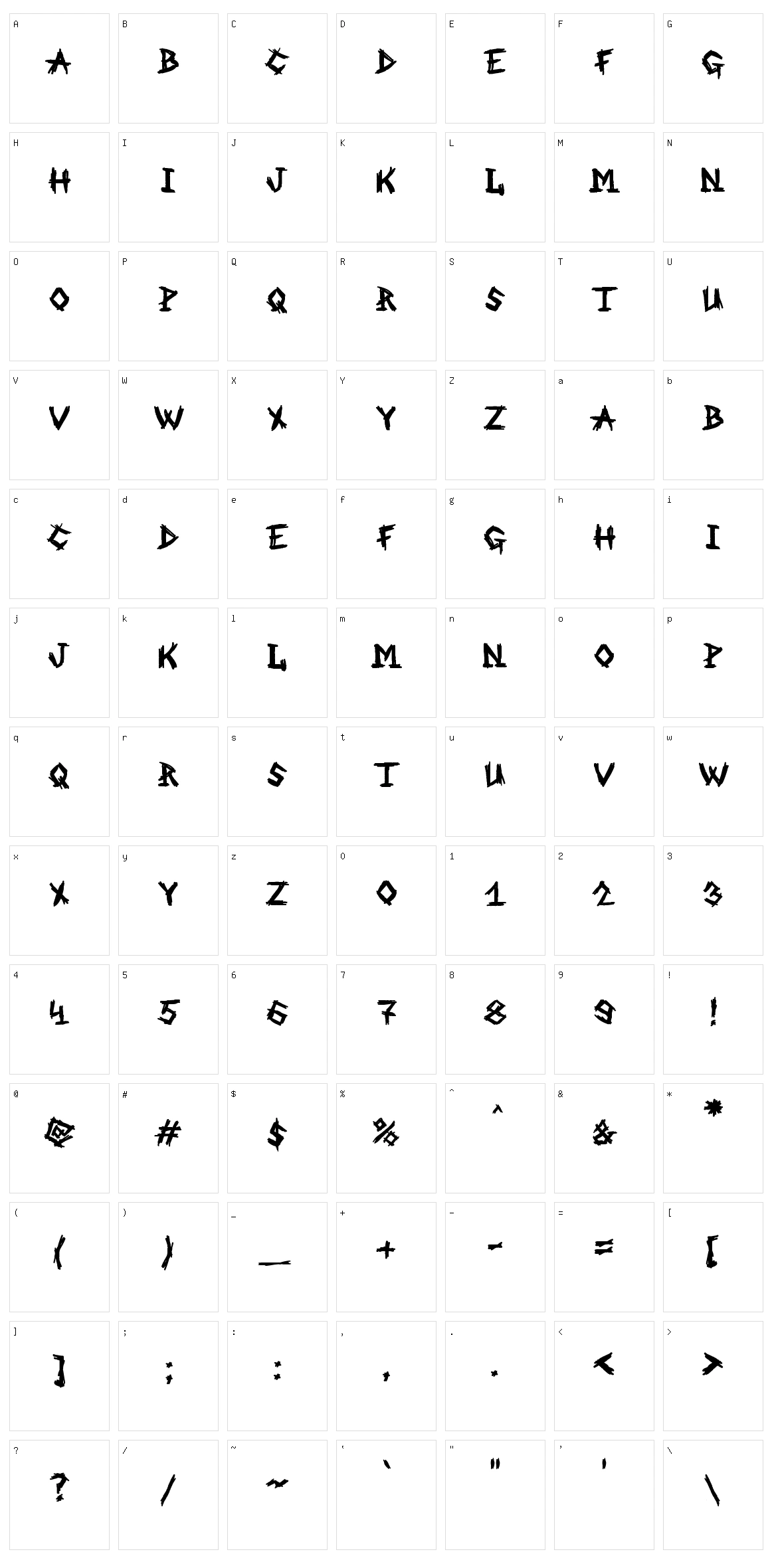
The free font MB An Old Witch is carefully designed by Irina ModBlackmoon, showcasing a thoughtful balance of creativity and usability and falls under the Trash font style. When you download the ZIP file, it contains only 69.81 KB of font files, making it lightweight and quick to download. Please review the license details below to understand permitted usage and distribution rights. If license information is not available, we recommend using this font for personal projects only or contacting the author directly for commercial usage permissions.
MB-An_Old_Witch íàöàðàïàííûé Øðèôò. Ðóêîïèñíûé.
Âêëþ÷àåò àíãëèéñêèå, åâðîïåéñêèå è êèðèëëè÷åñêèå ñèìâîëû.